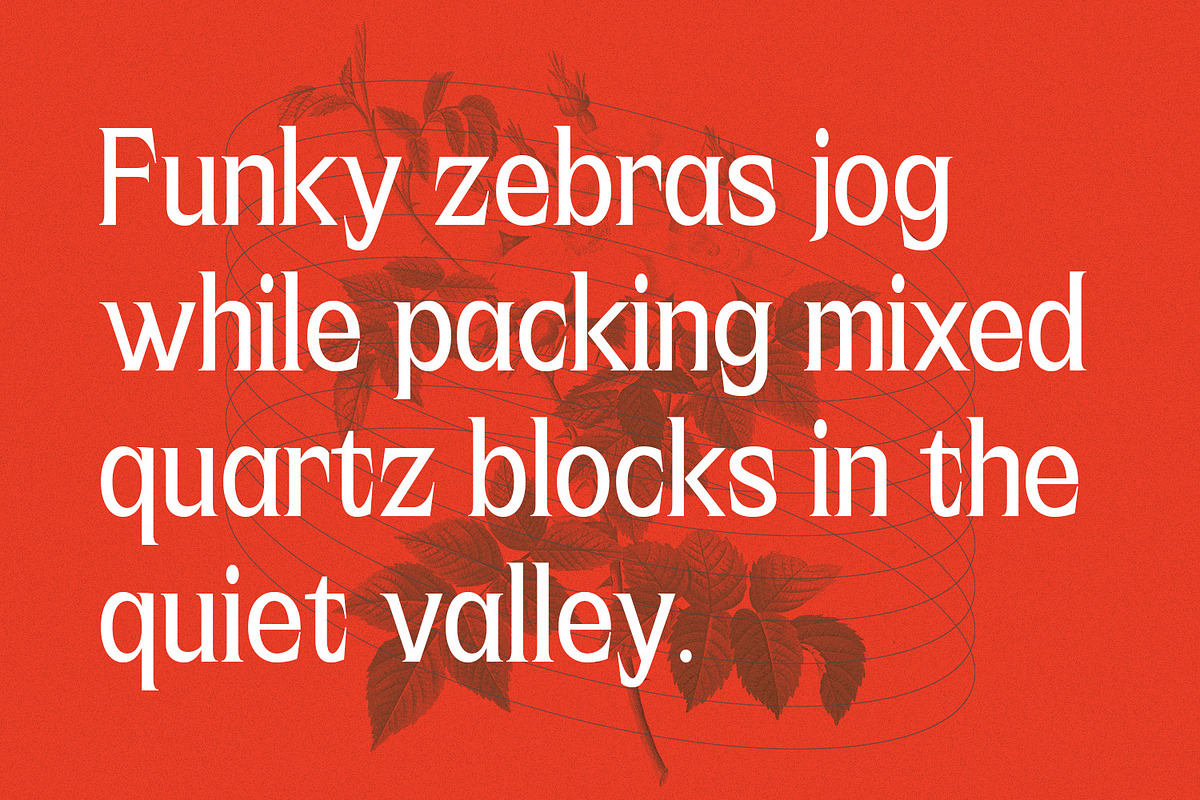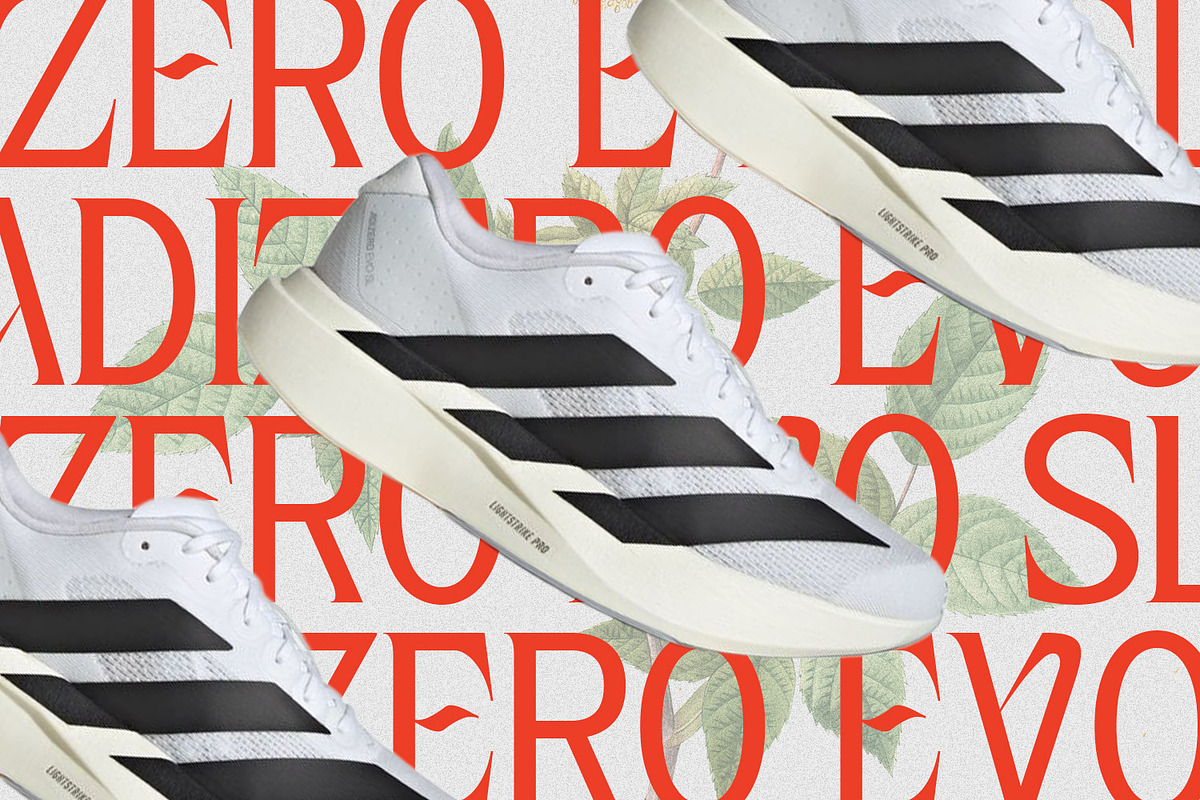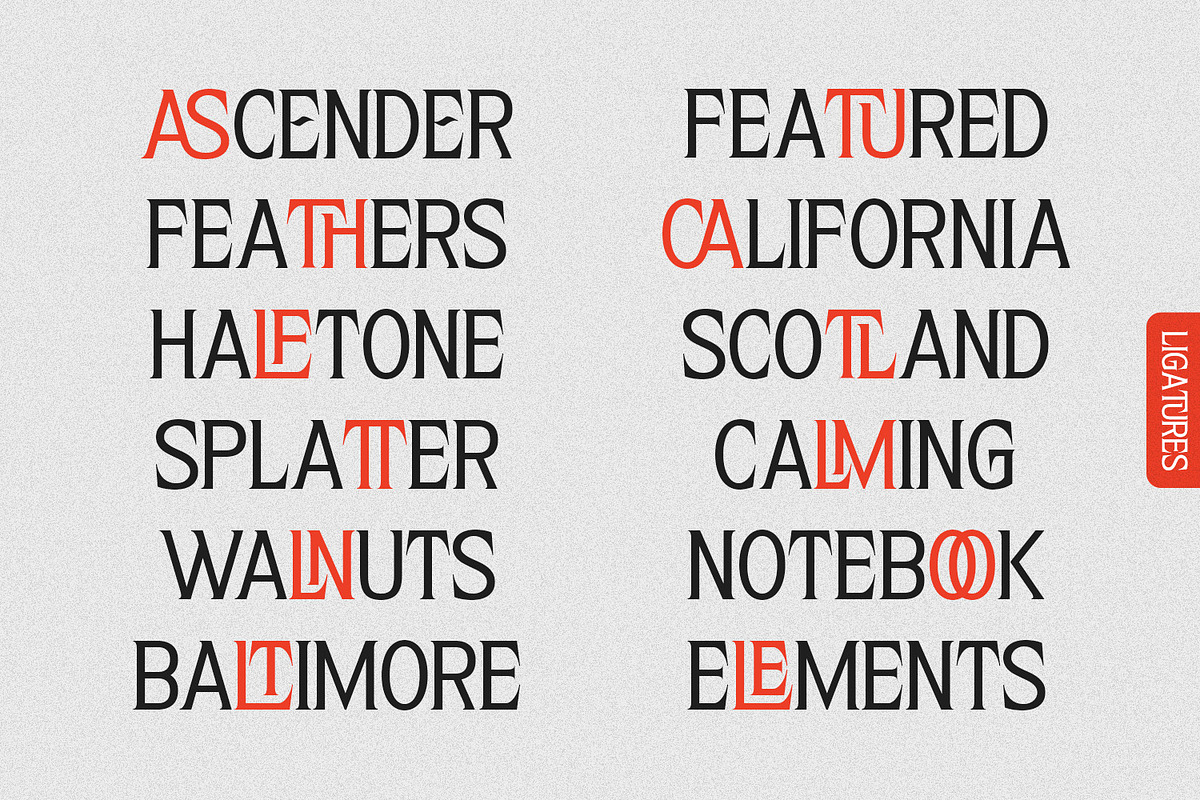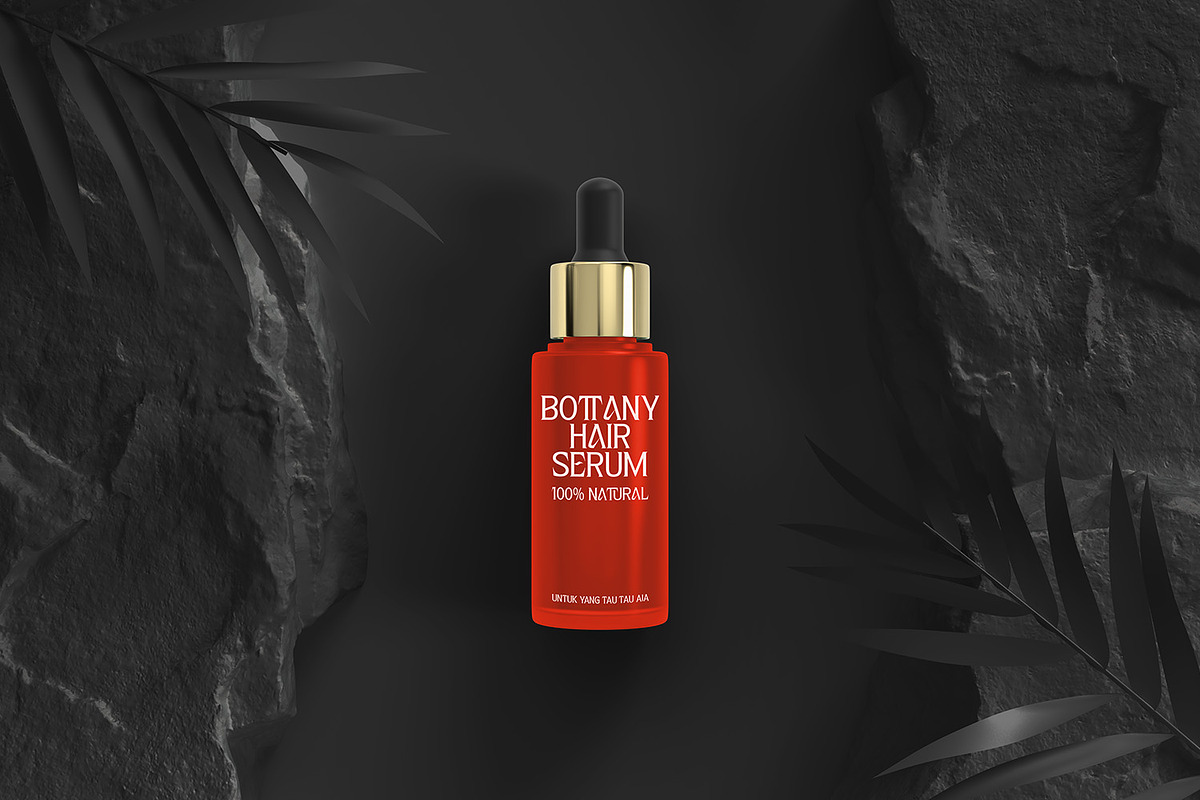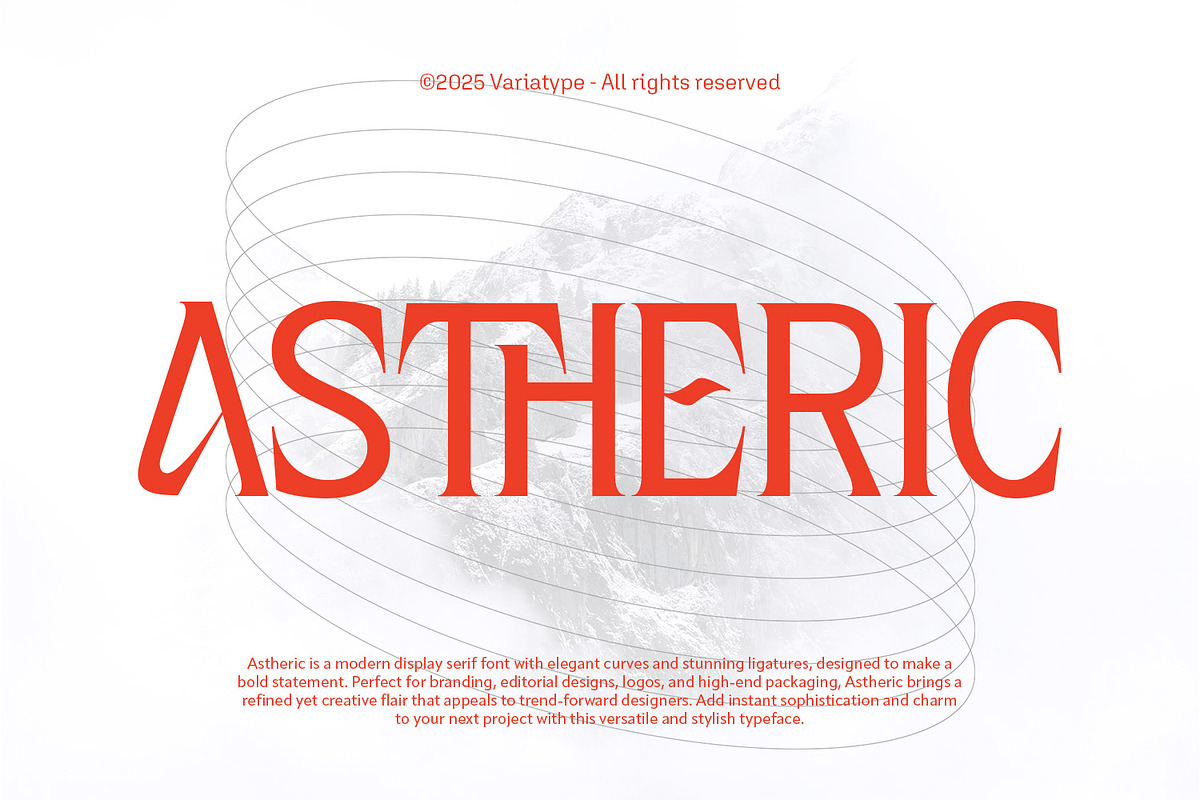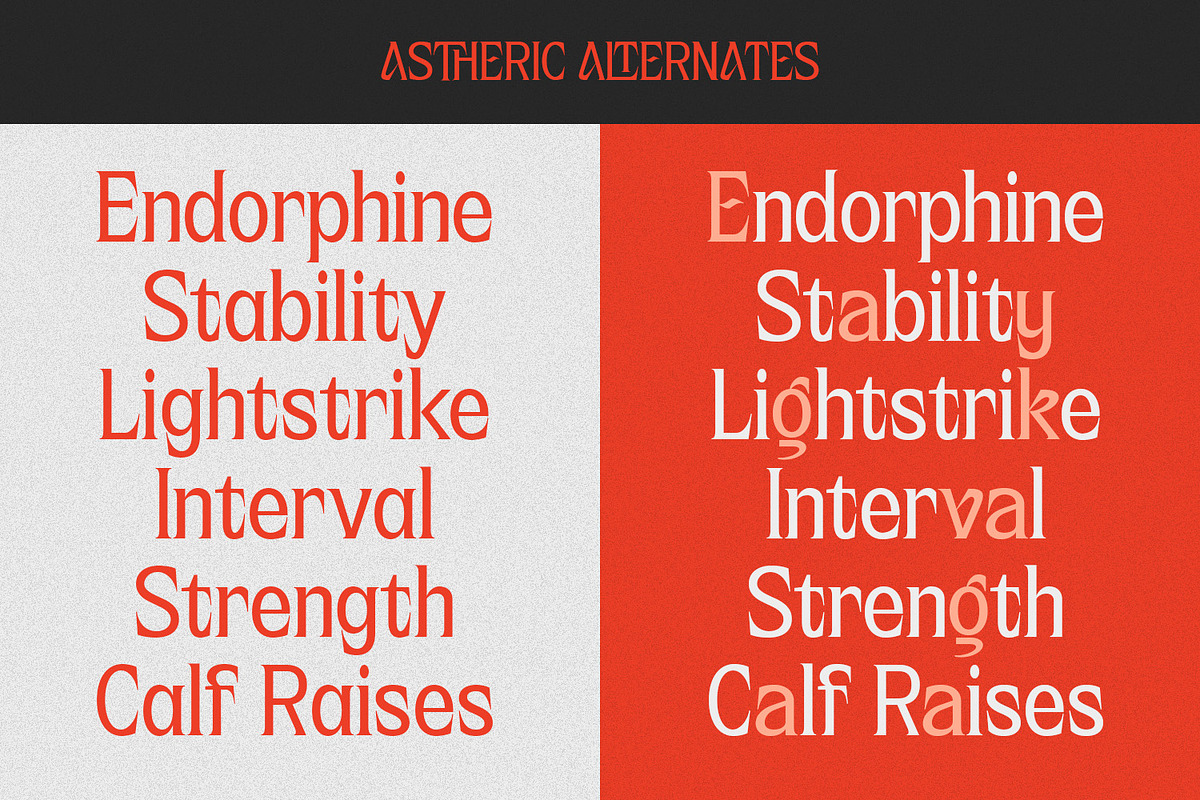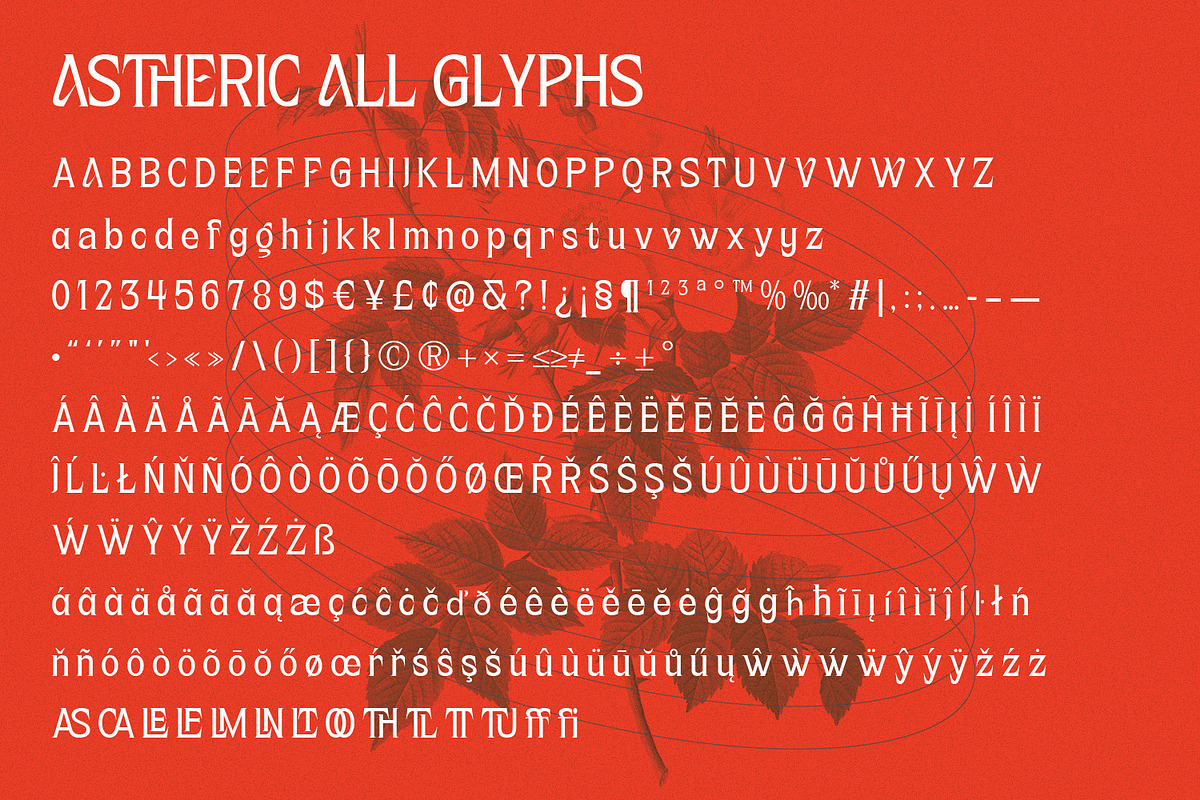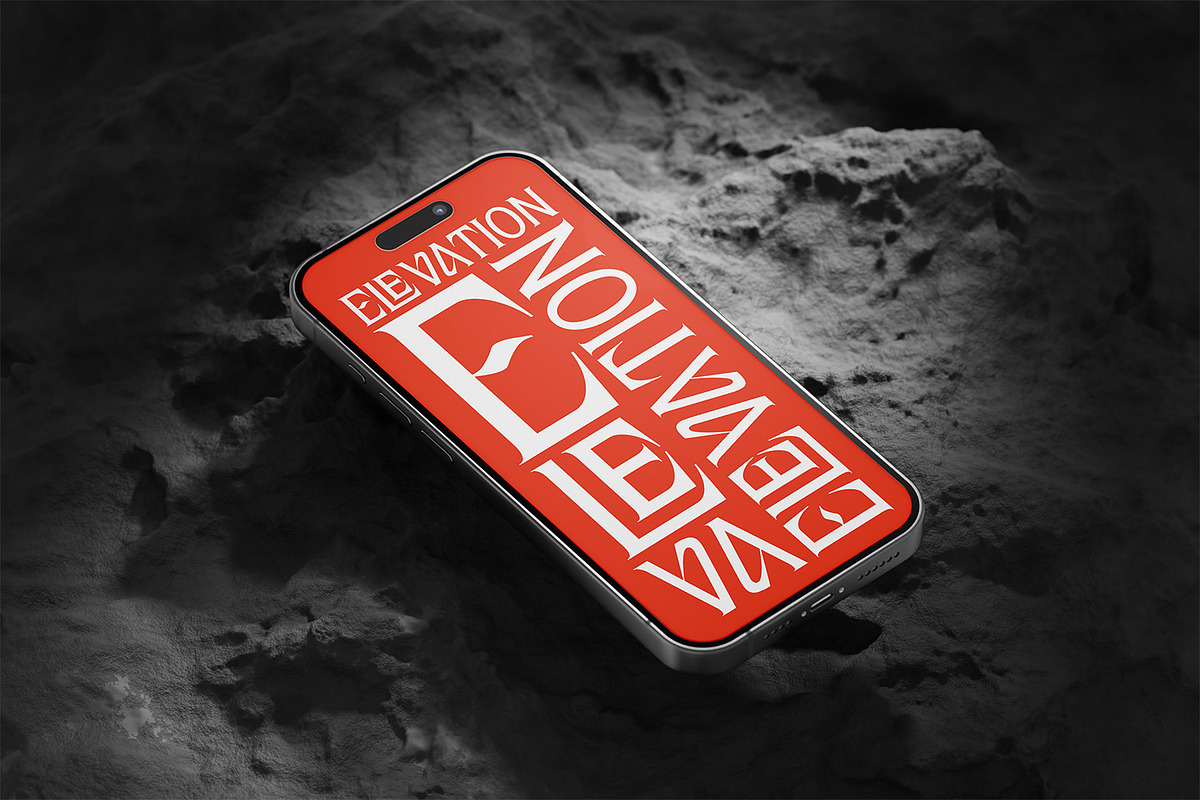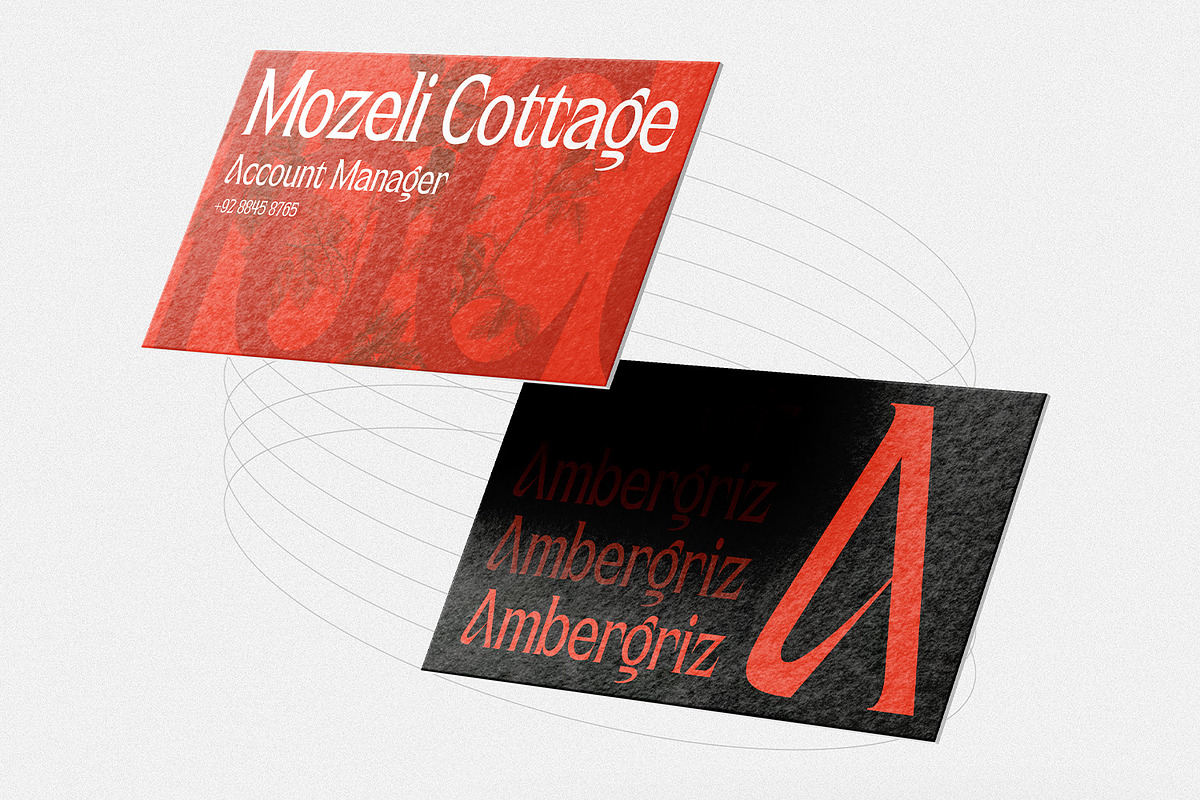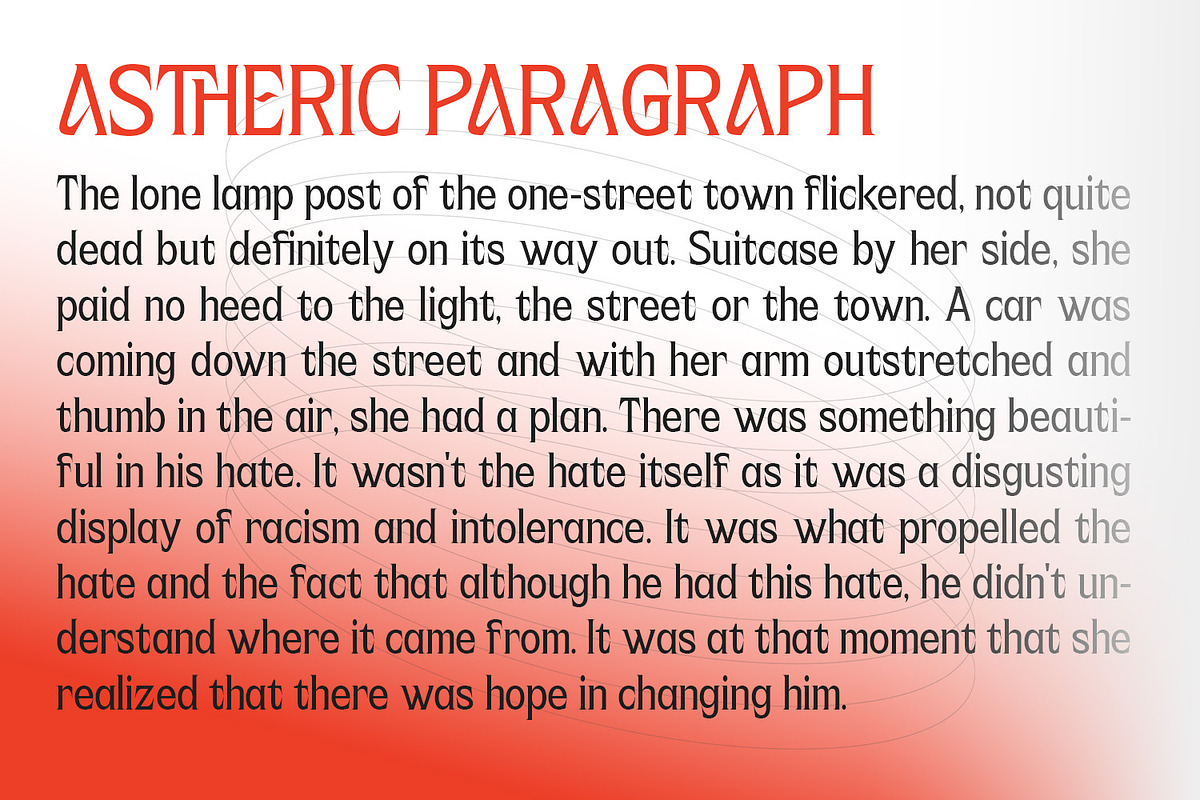
Astheric – Modern Ligature Serif
Astheric is a modern display serif font with elegant curves and stunning ligatures, designed to make a bold statement. Perfect for branding, editorial designs, logos, and high-end packaging. Astheric brings a refined yet creative flair that appeals to trend-forward designers. Add instant sophistication and charm to your next project with this versatile and stylish typeface.
FONT FEATURES
Additional Accents
81 Languages